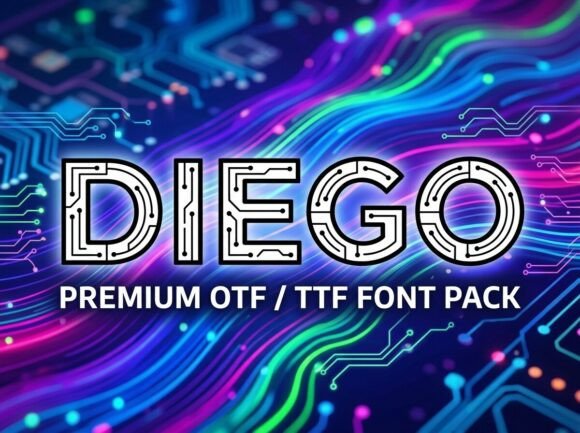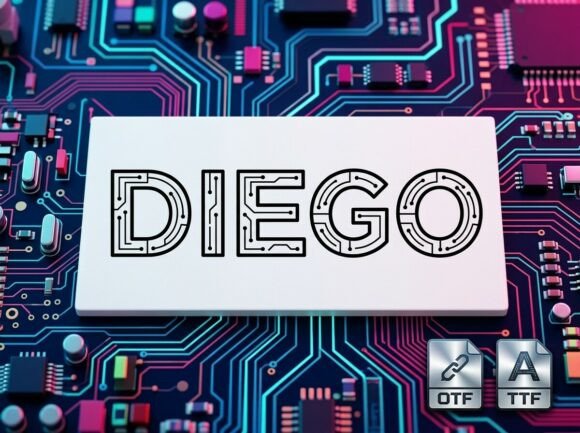
Introducing Diego Font: The Ultimate Choice for Tech-Driven Designs
In the rapidly evolving world of digital design, a font can make all the difference in capturing the essence of a brand or message. Meet Diego, a high-voltage display typeface that embodies the spirit of innovation and technological advancement. This bold sans-serif font is designed to convey a sense of futurism, making it the perfect choice for designers and crafters looking to create a lasting impression.
Unleash the Power of Diego
Diego’s unique design features bold letterforms filled with a dense tapestry of rhythmic circuit board pathways and microchip nodes. This intricate pattern creates a sense of depth and visual interest, setting it apart from more traditional fonts. The crisp white outline adds a touch of sophistication, making Diego suitable for a wide range of applications, from independent esports branding to cyber-security logos and hardware technology startups.
A Font that Embodies the Digital Era
With its heavy structural weight and futuristic personality, Diego is the premier choice for designers looking to create high-impact “digital-era” social media headers. The font’s bold and edgy design ensures that it stands out in a crowded online landscape, making it perfect for grabbing the attention of your audience. Whether you’re looking to create a logo, header, or promotional material, Diego is the ultimate choice for anyone looking to make a statement.
Key Features of Diego Font
- Bold Sans-Serif Letterforms: Diego’s bold letterforms are designed to make a statement, with a heavy structural weight that demands attention.
- Intricate Circuit Board Pattern: The font’s unique pattern of rhythmic circuit board pathways and microchip nodes adds a level of depth and visual interest.
- Crisp White Outline: The crisp white outline adds a touch of sophistication, making Diego suitable for a wide range of applications.
- Futuristic Personality: Diego’s futuristic design makes it perfect for tech-driven brands and startups looking to convey a sense of innovation.
Applications for Diego Font
Diego’s versatility makes it suitable for a wide range of applications, including:
- Independent Esports Branding: Diego’s bold and edgy design makes it perfect for esports teams and organizations looking to create a lasting impression.
- Cyber-Security Logos: The font’s futuristic design and intricate pattern make it suitable for cyber-security companies looking to convey a sense of innovation and protection.
- Hardware Technology Startups: Diego’s bold and futuristic design makes it perfect for hardware technology startups looking to make a statement.
- High-Impact Social Media Headers: The font’s heavy structural weight and futuristic personality make it perfect for creating high-impact social media headers that grab attention.
In conclusion, Diego font is a game-changer for designers and crafters looking to create tech-driven designs that capture the essence of innovation and technological advancement. With its bold sans-serif letterforms, intricate circuit board pattern, and crisp white outline, Diego is the ultimate choice for anyone looking to make a statement. Whether you’re looking to create a logo, header, or promotional material, Diego is the perfect choice for independent esports branding, cyber-security logos, hardware technology startups, and high-impact social media headers.
Get Ready to Plug into the Future with Diego
With Diego font, you can create designs that are truly ahead of the curve. So why wait? Plug into the future with Diego and experience the power of a font that’s designed to make a statement. Whether you’re a designer, crafter, or simply someone looking to create a lasting impression, Diego is the ultimate choice for anyone looking to capture the essence of innovation and technological advancement.